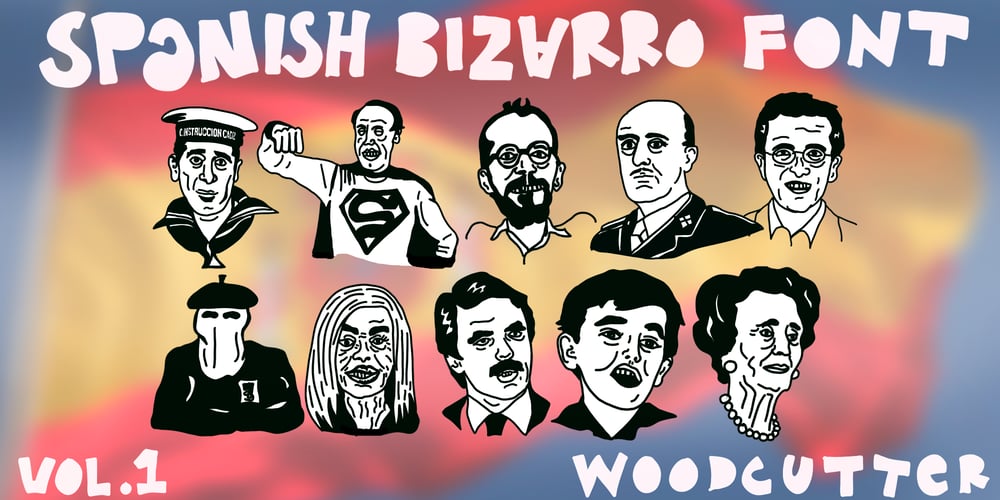
Spanish Bizarro Font Family was designed by Jordi Manero and published by Woodcutter. Spanish Bizarro contains 1 styles and family package options. “Spanish Bizarro” is a dingbat typeface featuring a unique collection of characters from Spanish culture and politics. Created by Woodcutter, this font stands out for its very freaky and cheesy style, capturing the most peculiar and satirical essence of Spanish society. From popular icons to controversial political figures, “Spanish Bizarro” offers a visual repertoire that adds a touch of humor and critique to your projects. Ideal for designs looking to be provocative and distinctive, this typeface is perfect for posters, flyers, and any graphic material that needs an irreverent and local touch.